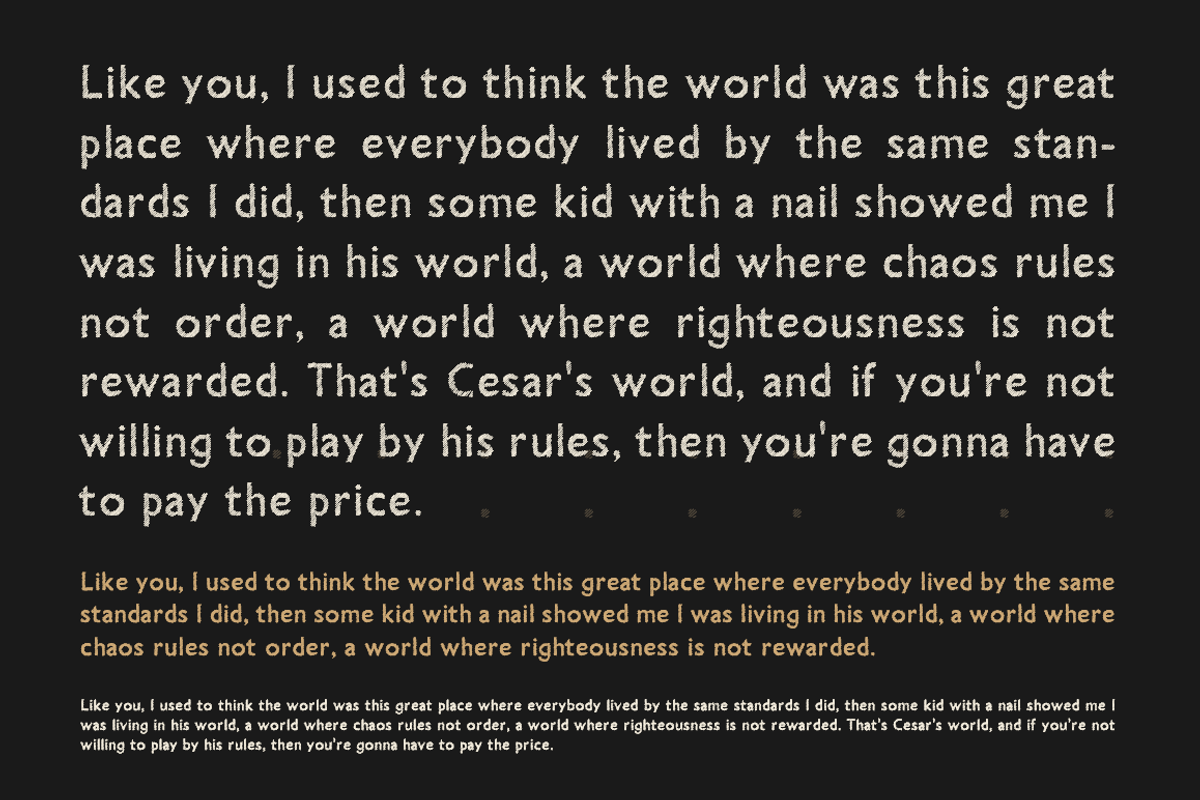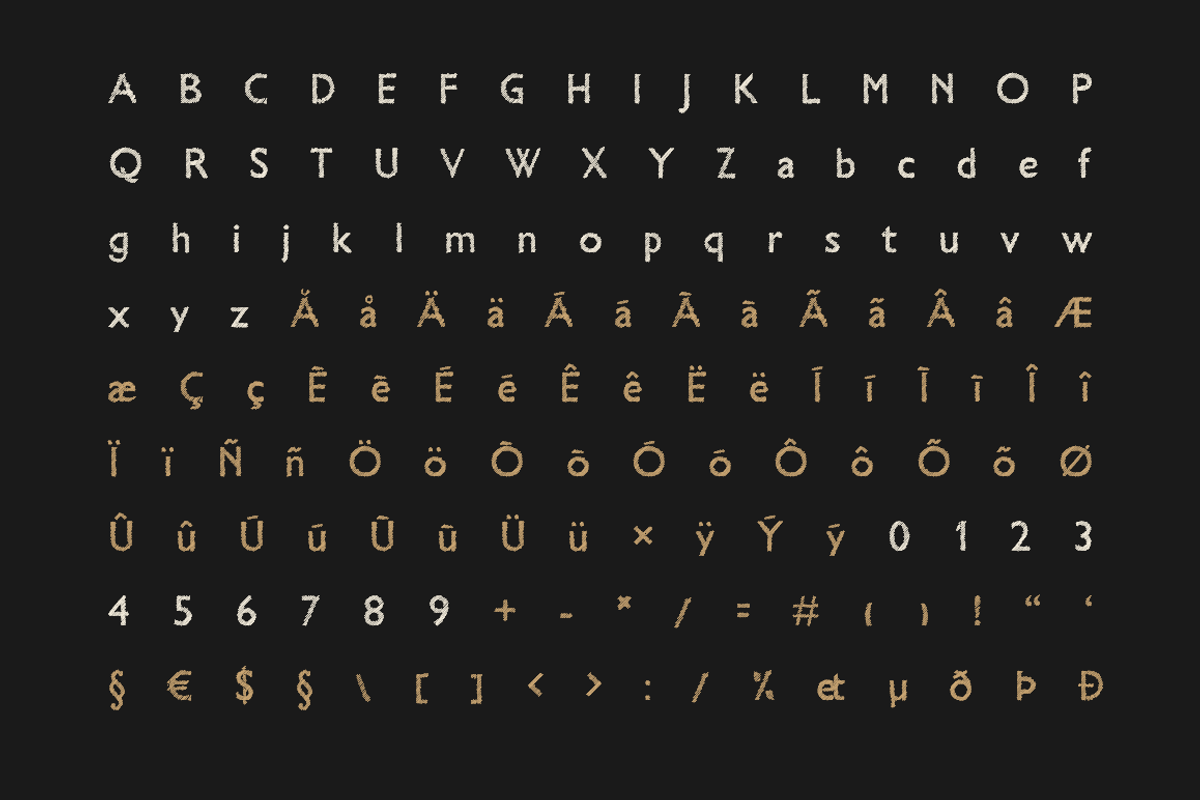
Super Head Club - Hand Drawn Font.
Super Head Club - Hand Drawn Font. by David is Creative is a font selected for branding, posters, packaging, typography.
Why Super Head Club - Hand Drawn Font. is worth a look
Super Head Club - Hand Drawn Font. by David is Creative fits naturally into Branding, posters, packaging, typography.